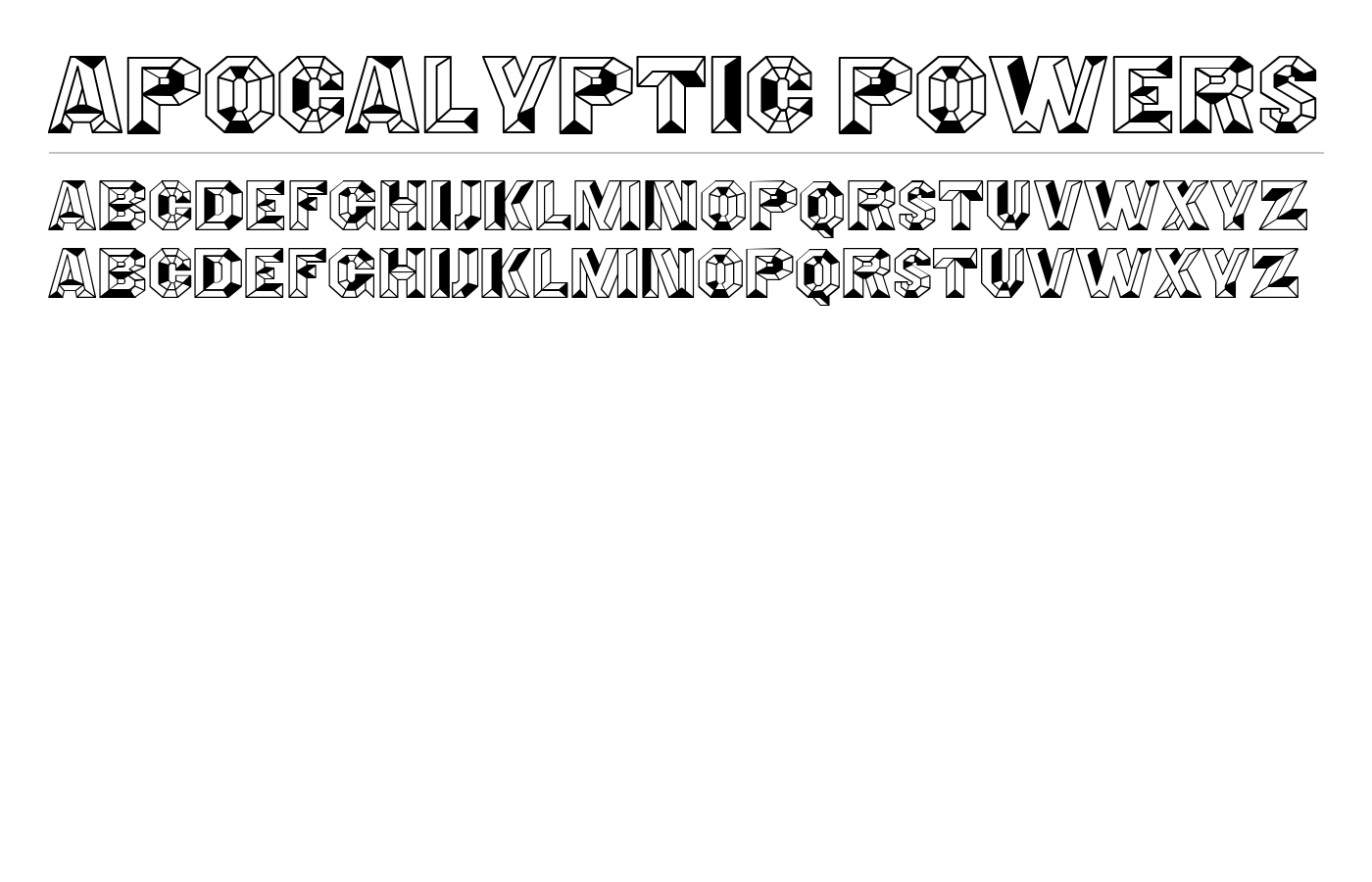
Apocalyptic Powers is a bold, geometric display font with a strong 3D illusion created by sharp angular facets and contrasting black and white shapes. Its uppercase-only design feels futuristic and dynamic, making it perfect for impactful headlines, posters, and branding that seeks a powerful, edgy, and modern aesthetic. This font works best when used large to showcase its intricate detail and dramatic style.
Apocalyptic Powers Font
About Apocalyptic Powers Font